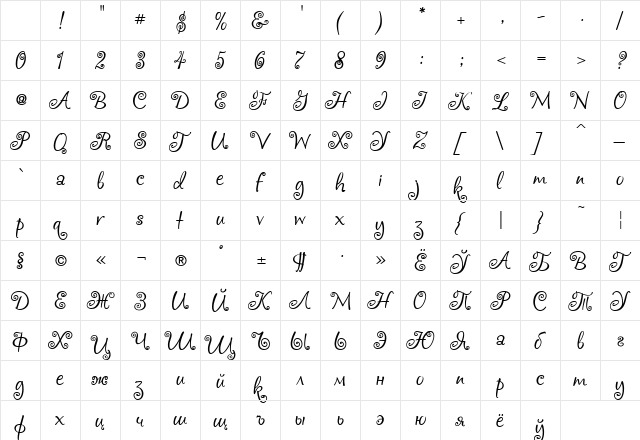
Complete Chocogirl Regular glyph index. Displaying only characters natively supported by Chocogirl Regular font.
Chocogirl is a composed and adaptable typeface that performs quietly and consistently across a wide range of design contexts.
Pro Tip: Use Chocogirl in both headline and body roles to test its range before committing to a single application.